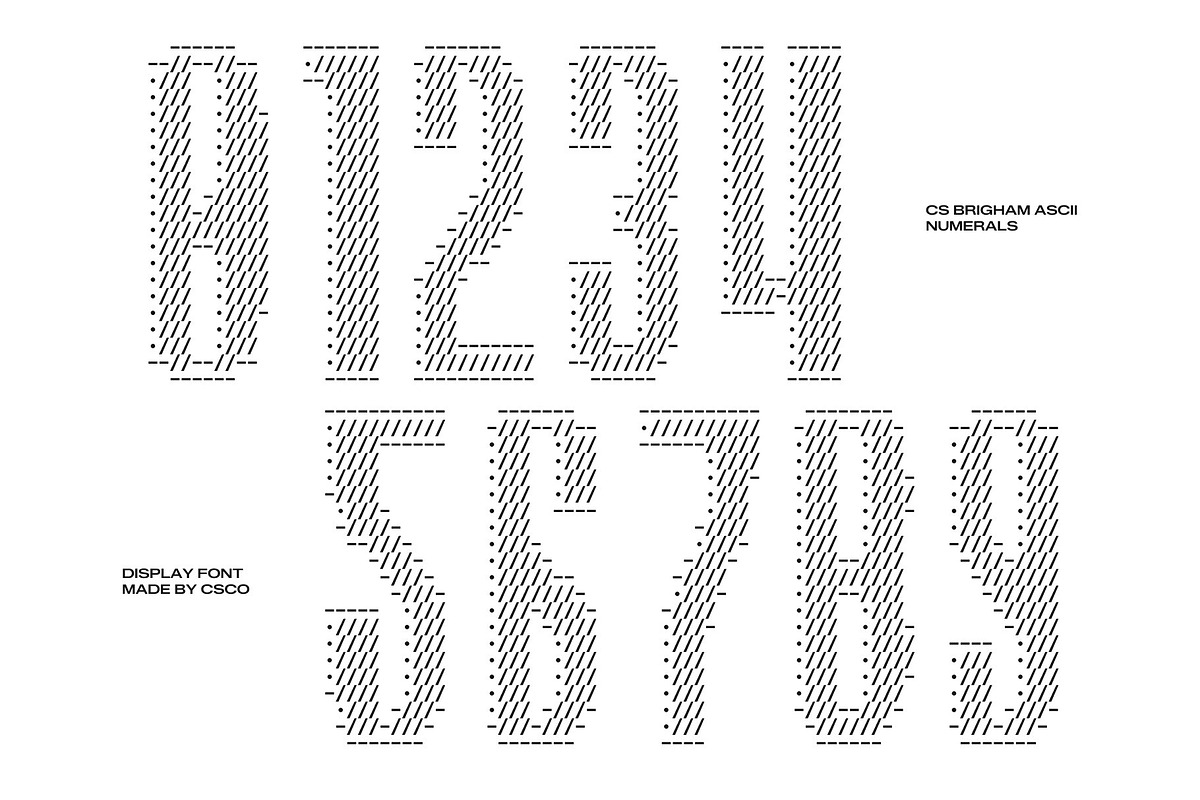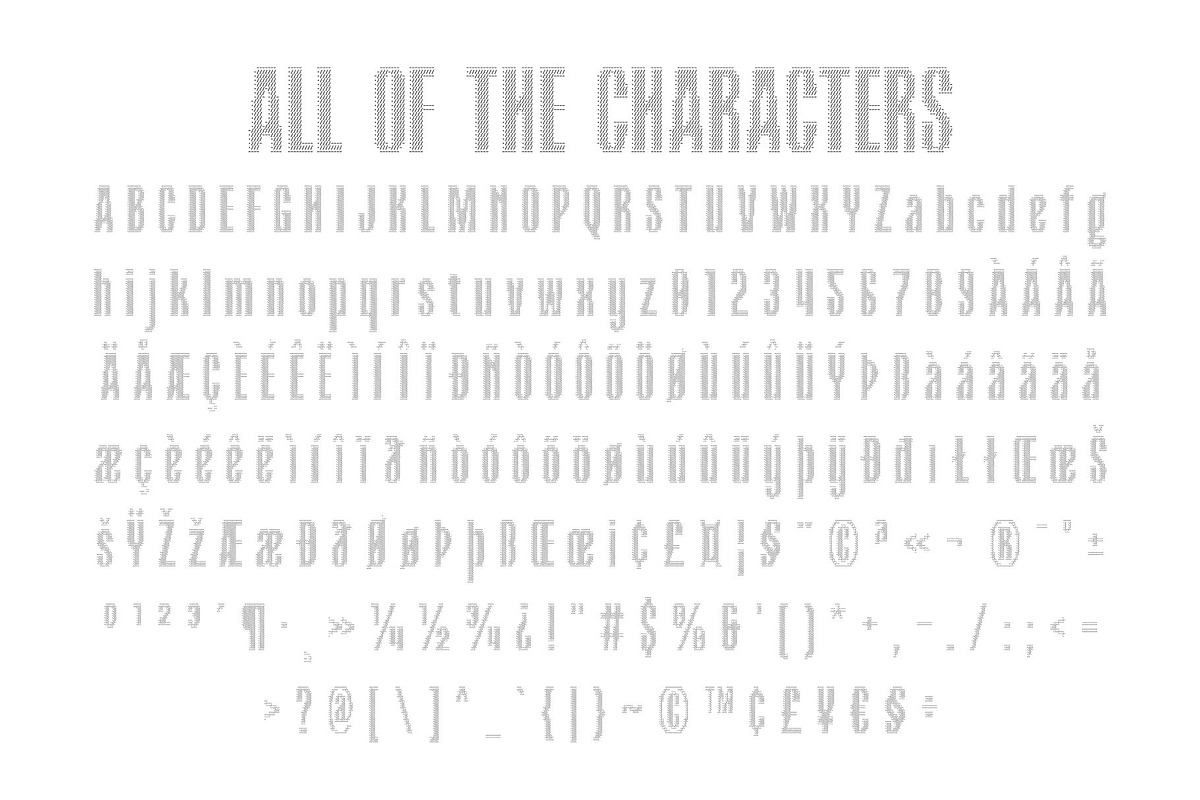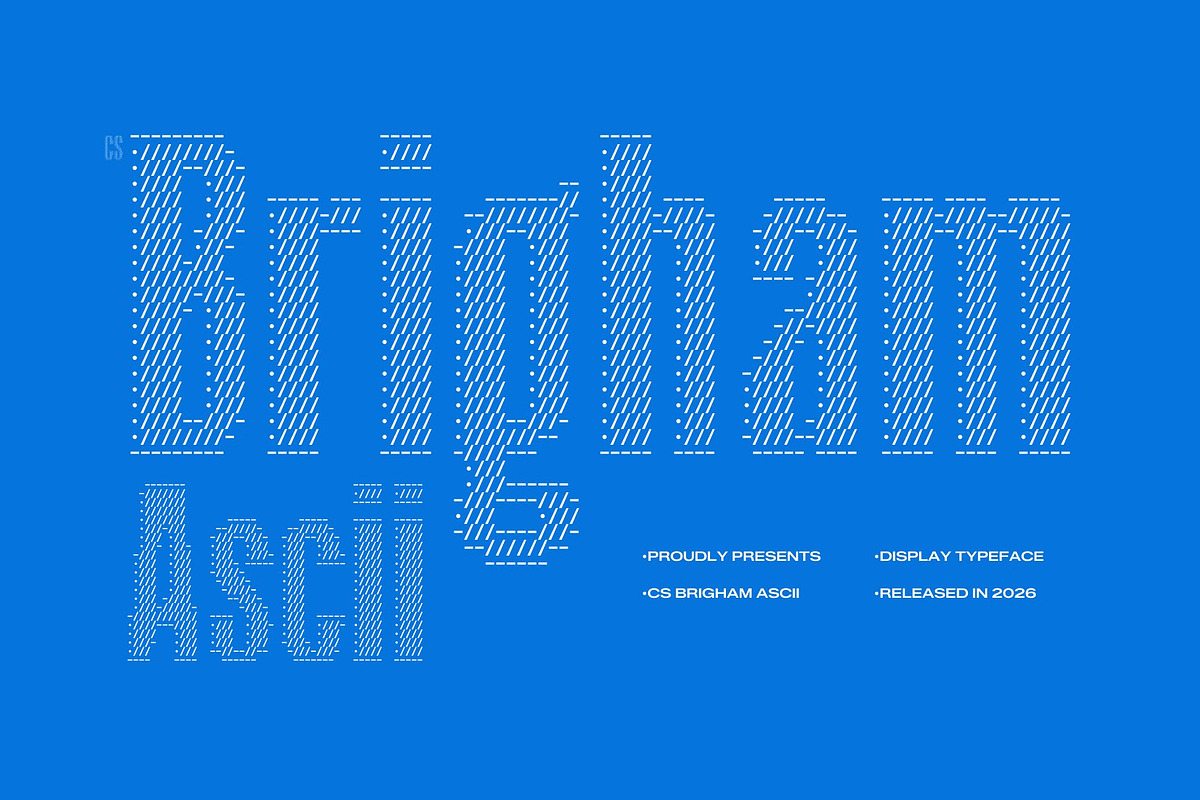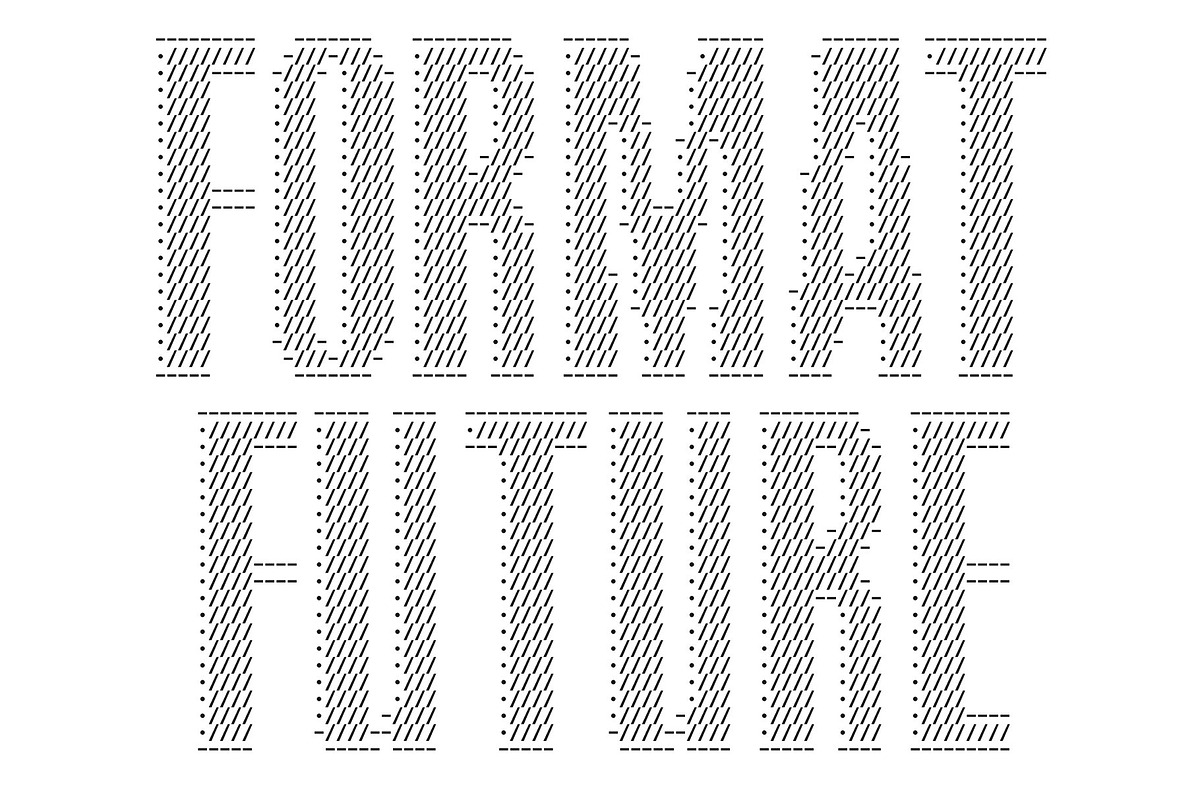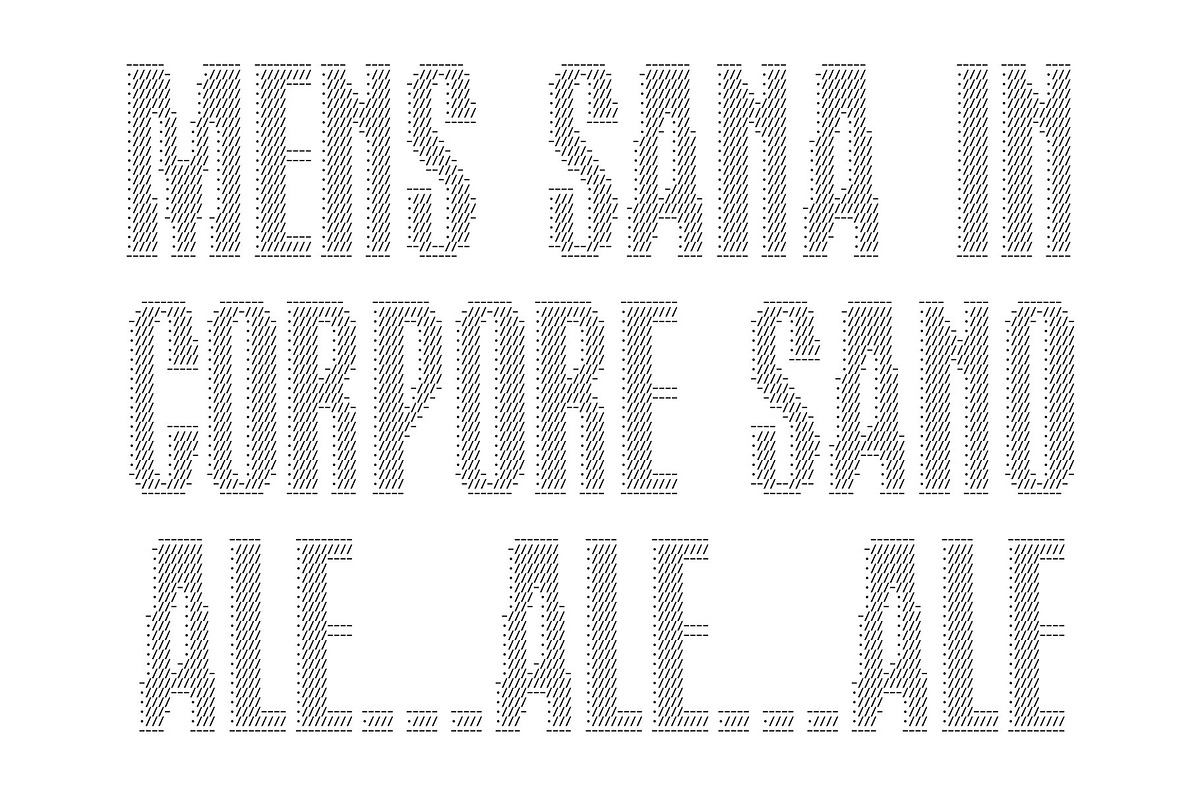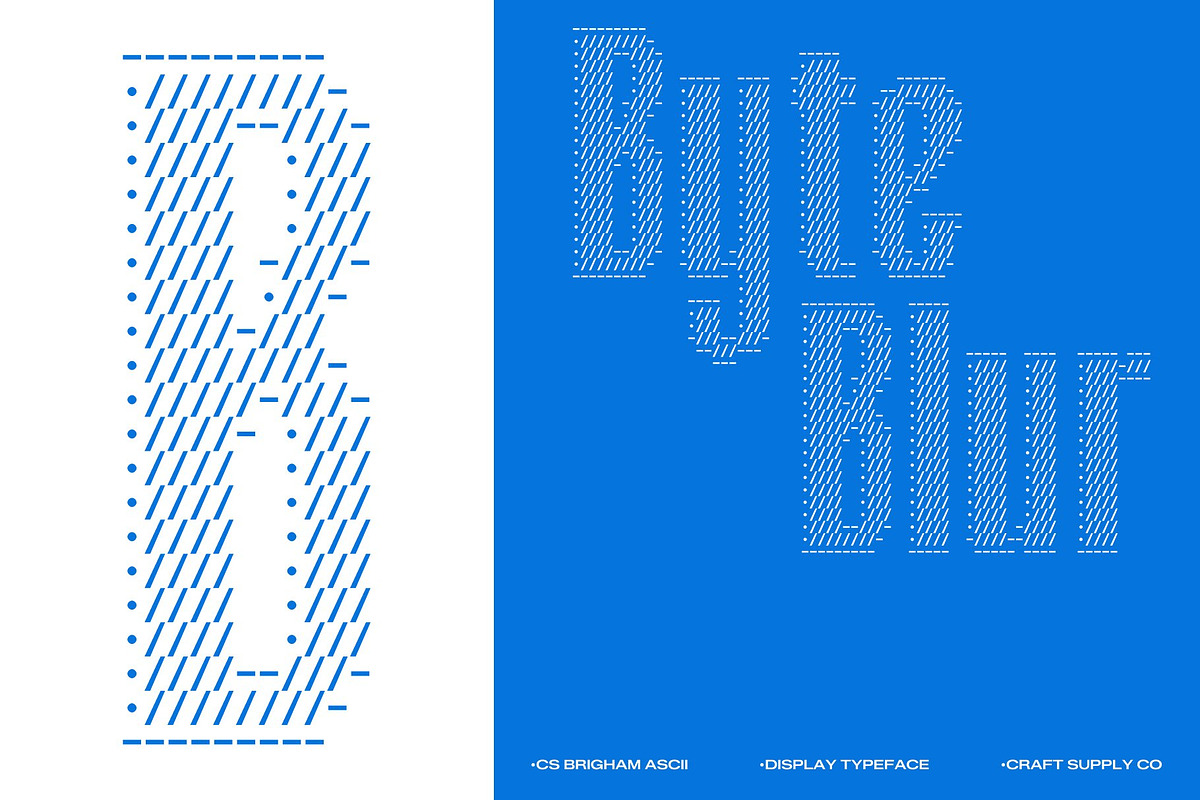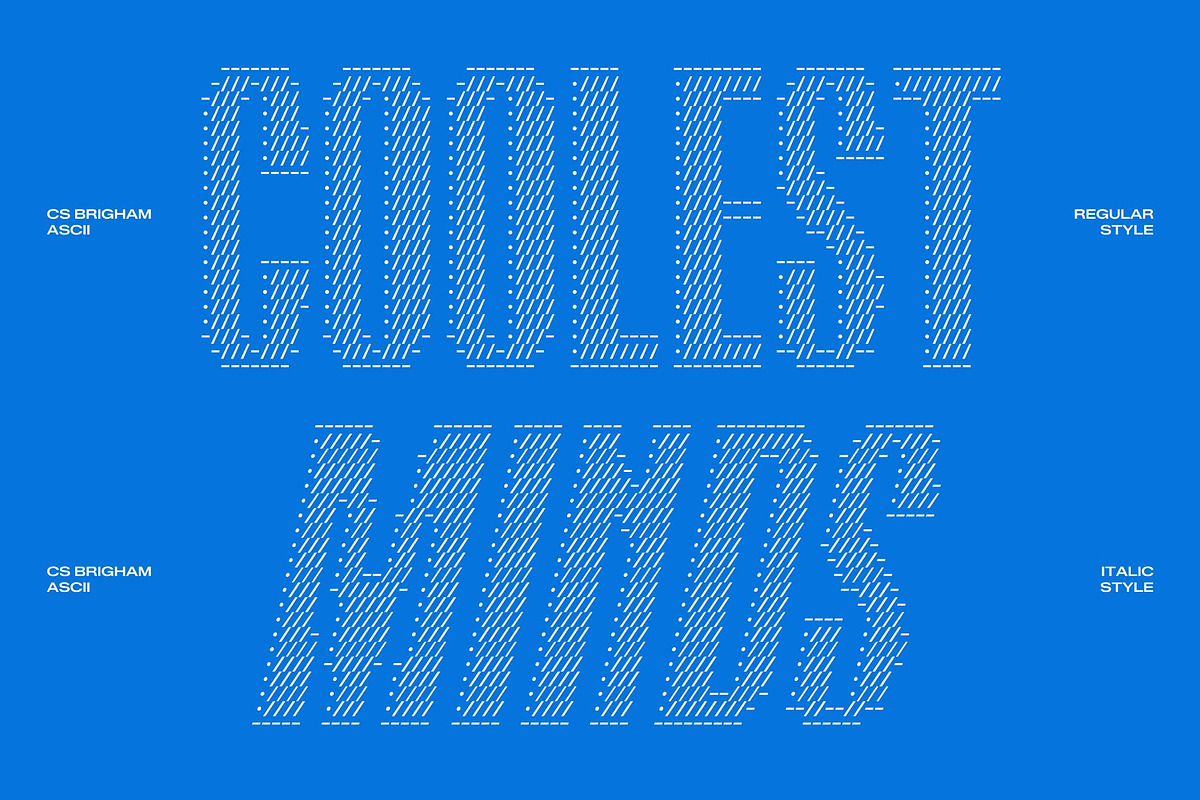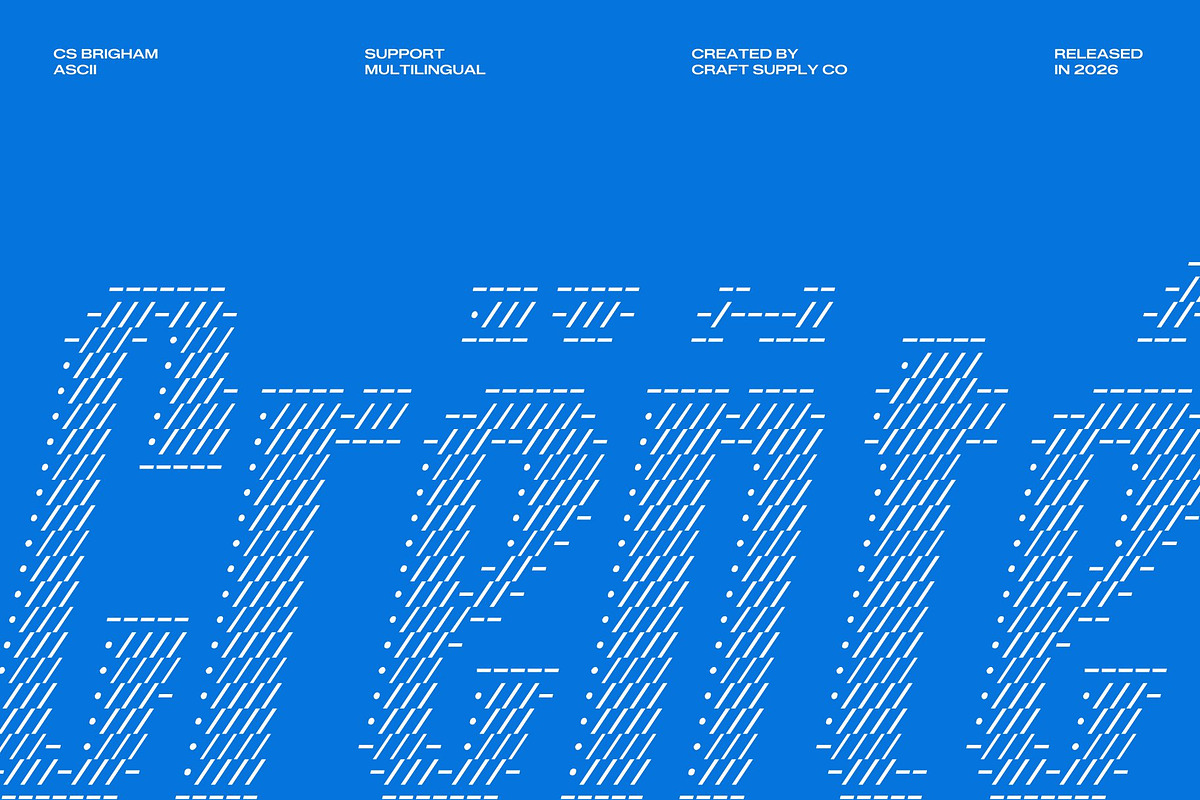
CS Brigham Ascii
CS Brigham Ascii – Bold Simplicity in Digital Form
Clean Structure Reimagined Through ASCII This transforms the clarity of a bold condensed sans serif into a visually striking ASCII display font. Each character is built from carefully arranged symbols, turning simple text into a structured digital composition. This approach preserves the font’s strong, minimalist personality while introducing a distinctive technological texture that immediately captures attention in modern layouts.
Bold Minimalism with Modern Confidence The tightly constructed letterforms deliver a powerful and professional tone, allowing headlines and titles to stand out with confidence. Its condensed proportions maximize space efficiency, making it ideal for layouts that require strong visual hierarchy without overwhelming the composition. The ASCII styling adds depth and character while keeping the overall appearance clean, sleek, and purposeful.
Highly Readable Across Media This font maintains excellent clarity in both print and digital formats, ensuring your message remains sharp and legible even in dense compositions. This balance between compact structure and readability makes it perfect for posters, websites, packaging, social media graphics, and editorial headlines. The font feels modern, efficient, and adaptable across a wide range of creative platforms.
Perfect for Contemporary Branding and Visual Communication Designed for designers who value simplicity and strength, this font delivers a bold typographic voice for modern branding and creative projects. It works beautifully in tech visuals, cyber-themed graphics, developer tools, and forward-thinking brand identities.
CS Brigham Ascii Regular
CS Brigham Ascii Italic